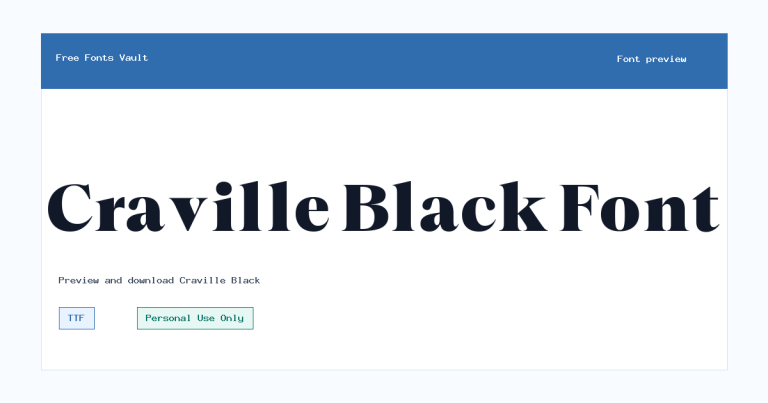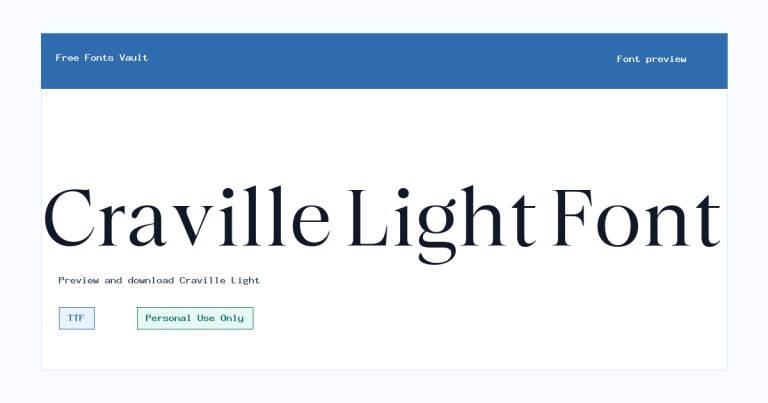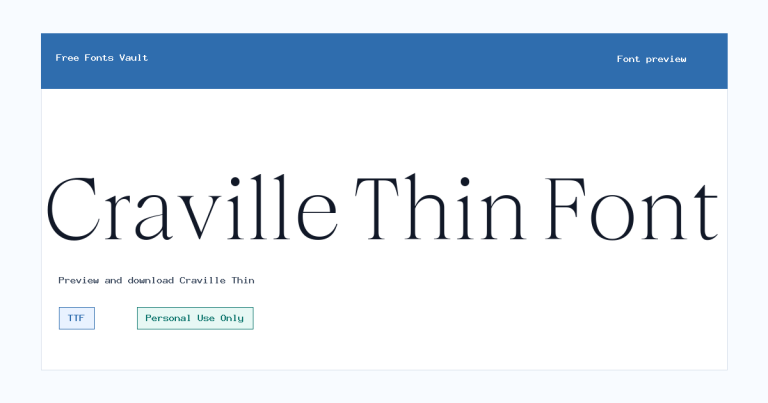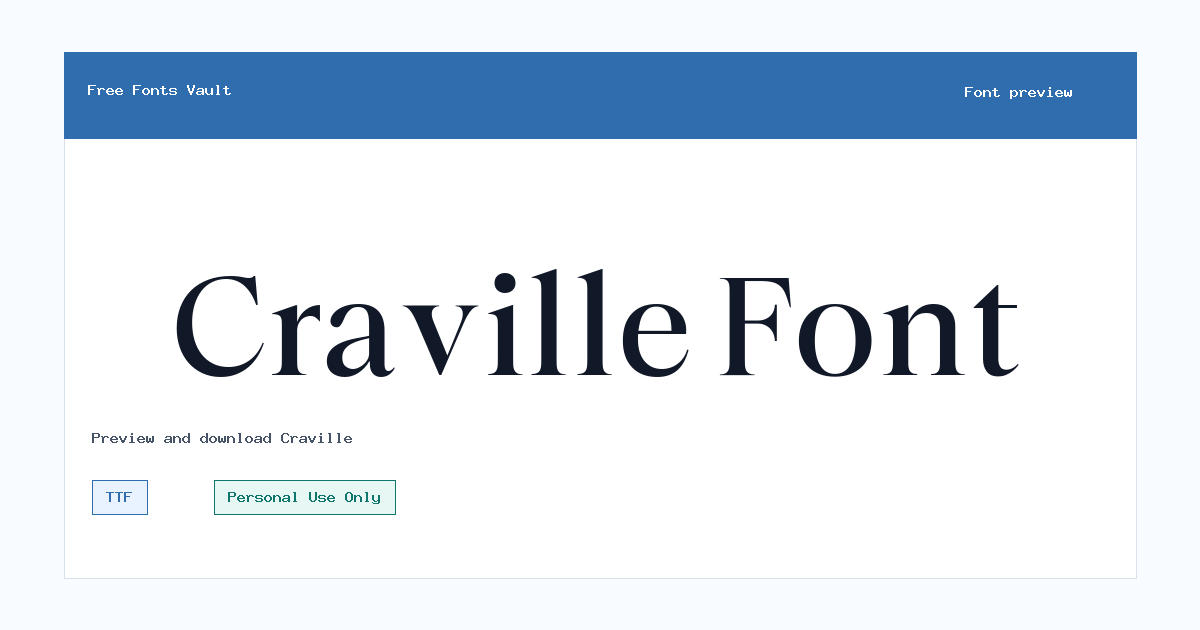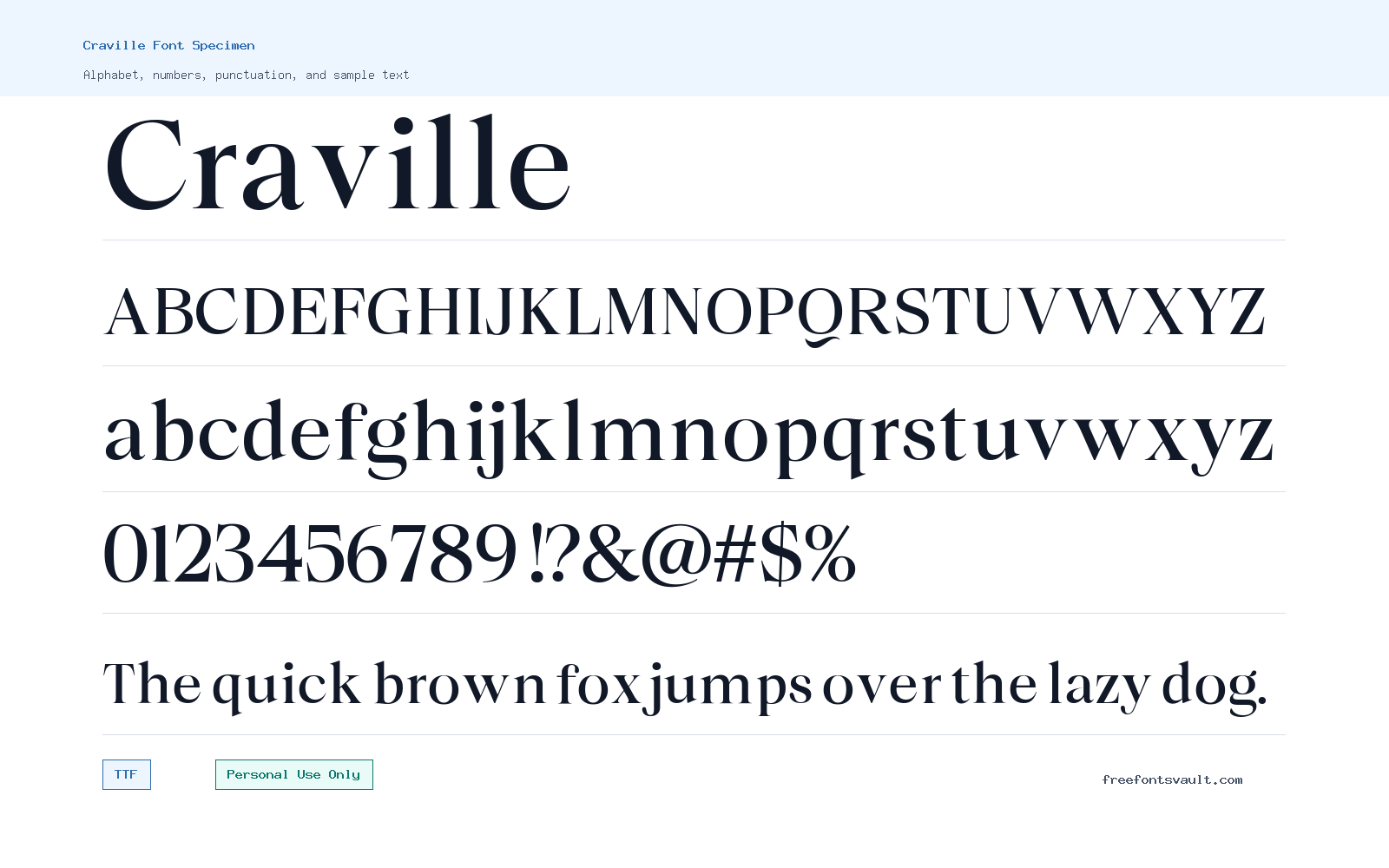
Craville
Craville Font
About Craville
Craville has the structure visitors expect from a display-friendly serif: letterforms with visible contrast, formal details, and enough presence to stand apart from plain body text. The Regular style is useful when you want a refined title that still feels readable, while the Bold style gives headings, poster lines, and logo drafts a stronger visual weight. Because the confirmed package contains Regular and Bold weights rather than a wide text family, Craville works best when it is used with purpose instead of stretched across every part of a layout.
For designers, the safest way to evaluate Craville is to test it with the exact words that will appear in the project. Try brand names, short headlines, invitation lines, product titles, and social graphics in the preview tool. Look closely at spacing between uppercase letters, punctuation, numerals, and pairs such as AV, To, Wa, and ry. Serif fonts can look elegant at large sizes but may need extra tracking or manual kerning in logos and display settings. If you are building a web mockup, test both the Regular and Bold files in headings before pairing them with a simpler sans serif for menus, captions, and longer copy.
• Serif font family with Regular and Bold styles for display-focused typography.
• Normal upright style in both 400 and 700 weights.
• Useful contrast between a lighter title style and a heavier headline style.
• Best suited to short text settings where letter shape and spacing can be checked carefully.
• Poster titles, event graphics, and editorial-style headlines.
• Social media artwork, quote cards, and portfolio presentation images.
• Packaging mockups, label concepts, and boutique-style visual tests.
• Website hero headings or landing-page mockups paired with a clean text font.
• Invitation layouts, name cards, and other short decorative text uses.
Use Craville where the font can be seen clearly: large headings, logo drafts, posters, and short display lines. Avoid relying on it for long paragraphs until you have tested readability at the final size. For balanced layouts, pair it with a neutral sans serif for body text, navigation, captions, and form labels. In logo work, preview both Regular and Bold, adjust tracking by hand, and check the design in black and white before adding color or effects. For web mockups, confirm that the TTF files load correctly in your design environment and remember that commercial web use may require a separate license.
What styles are included with Craville?
Craville has Regular and Bold TTF styles. Both are upright normal styles, with Regular at weight 400 and Bold at weight 700.
What kind of projects is Craville good for?
Craville is best for short, visible text such as logos, poster titles, social graphics, invitations, product mockups, and website hero headings.
Is Craville a good font for body text?
It is better to start with headings and display text. If you want to use it in longer copy, test it at the final size and pair it with a simpler body font when readability matters.